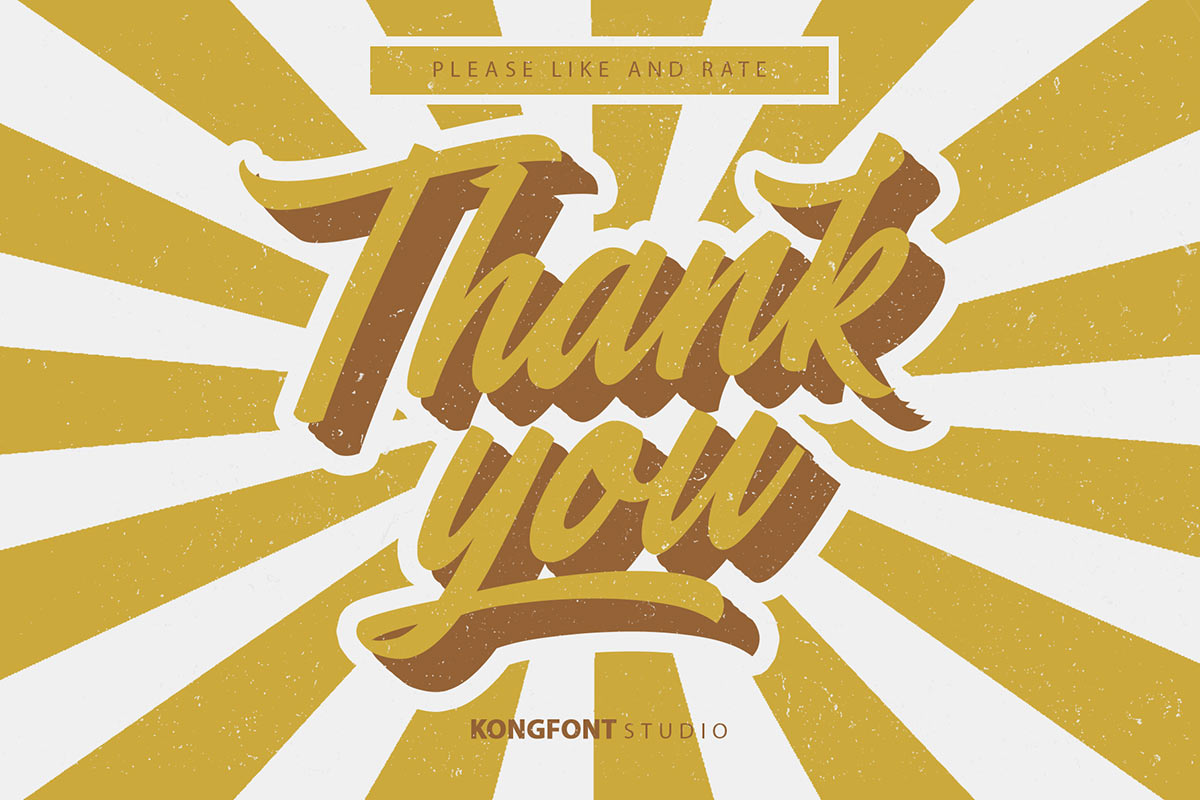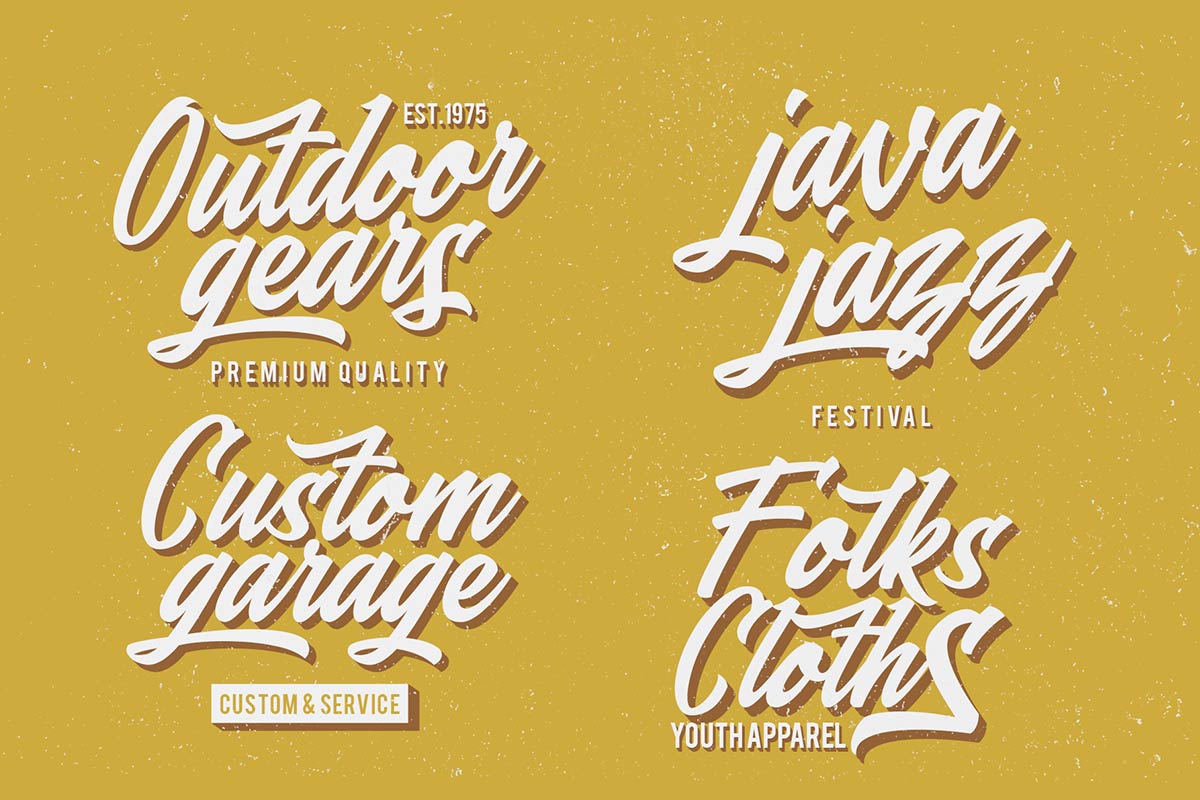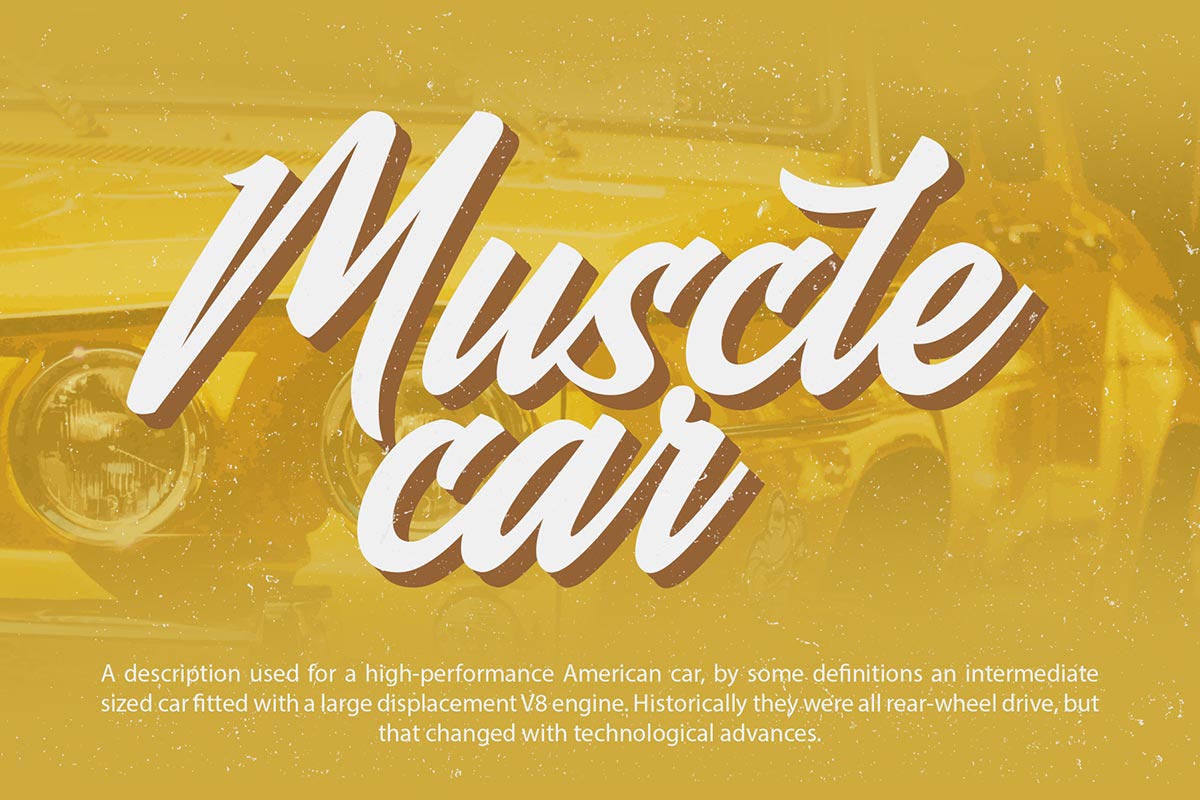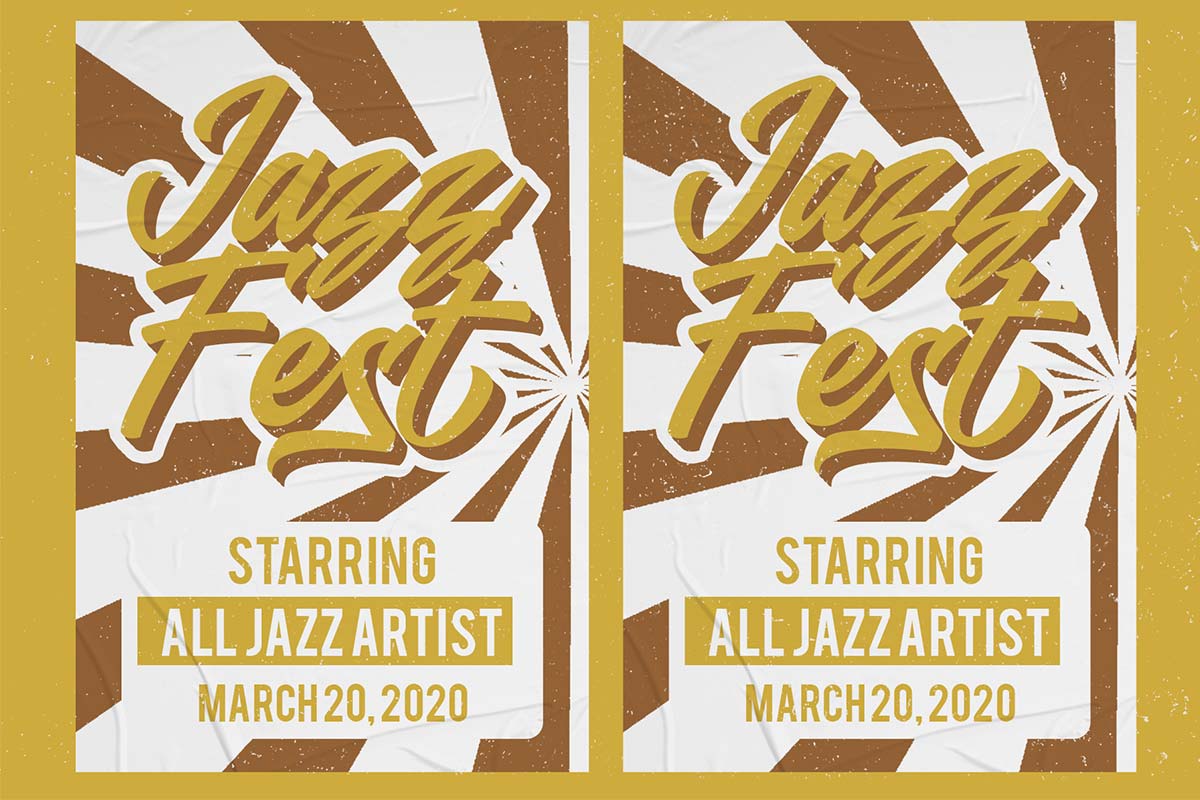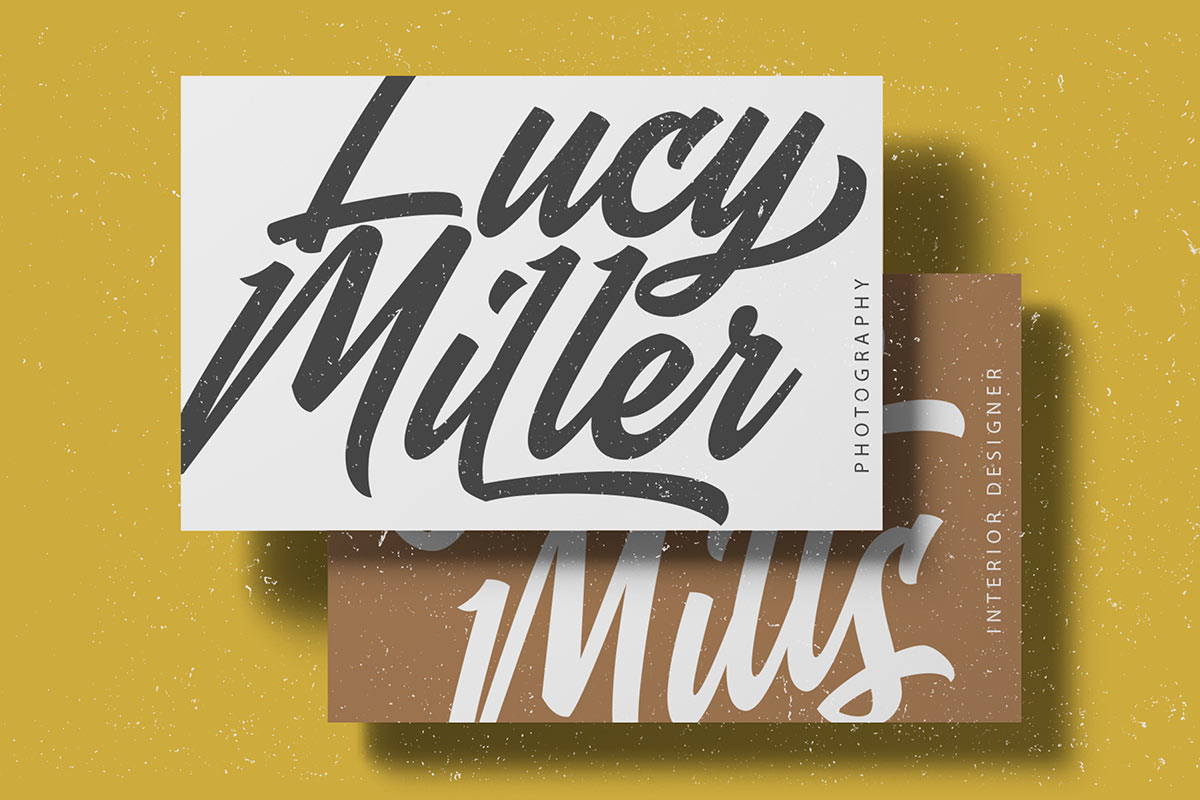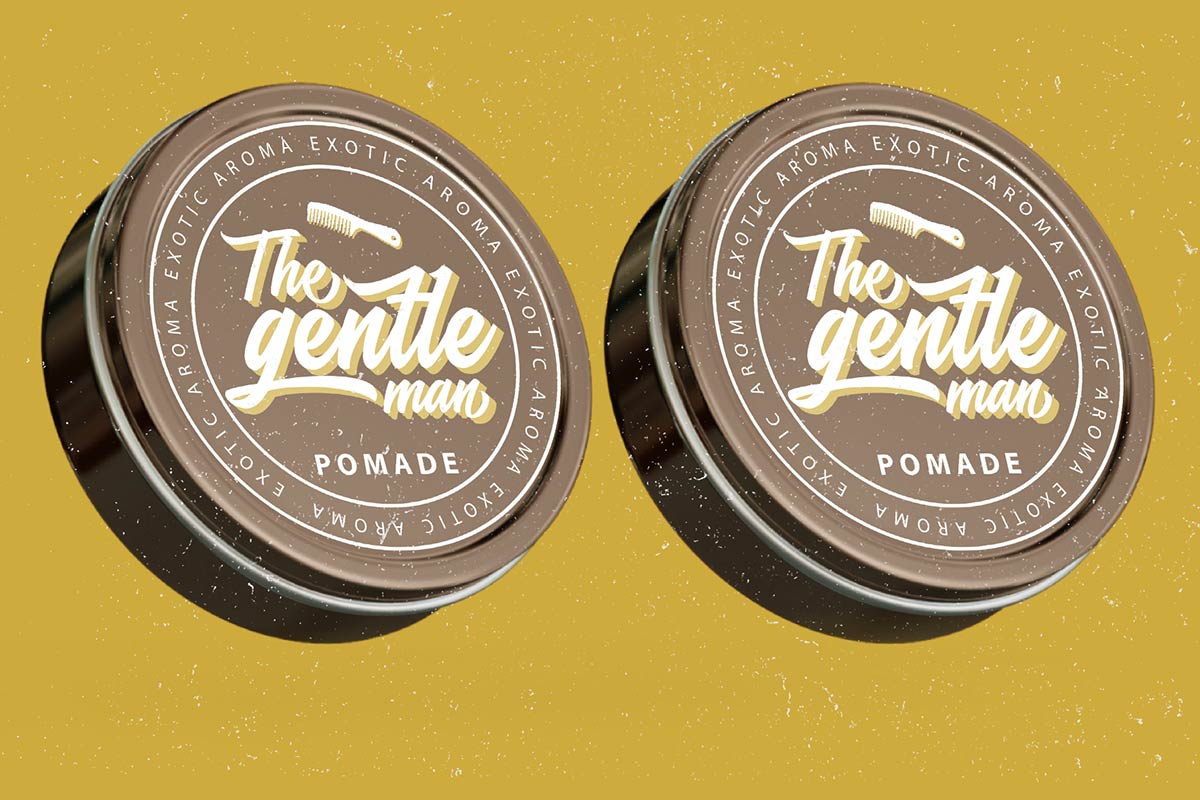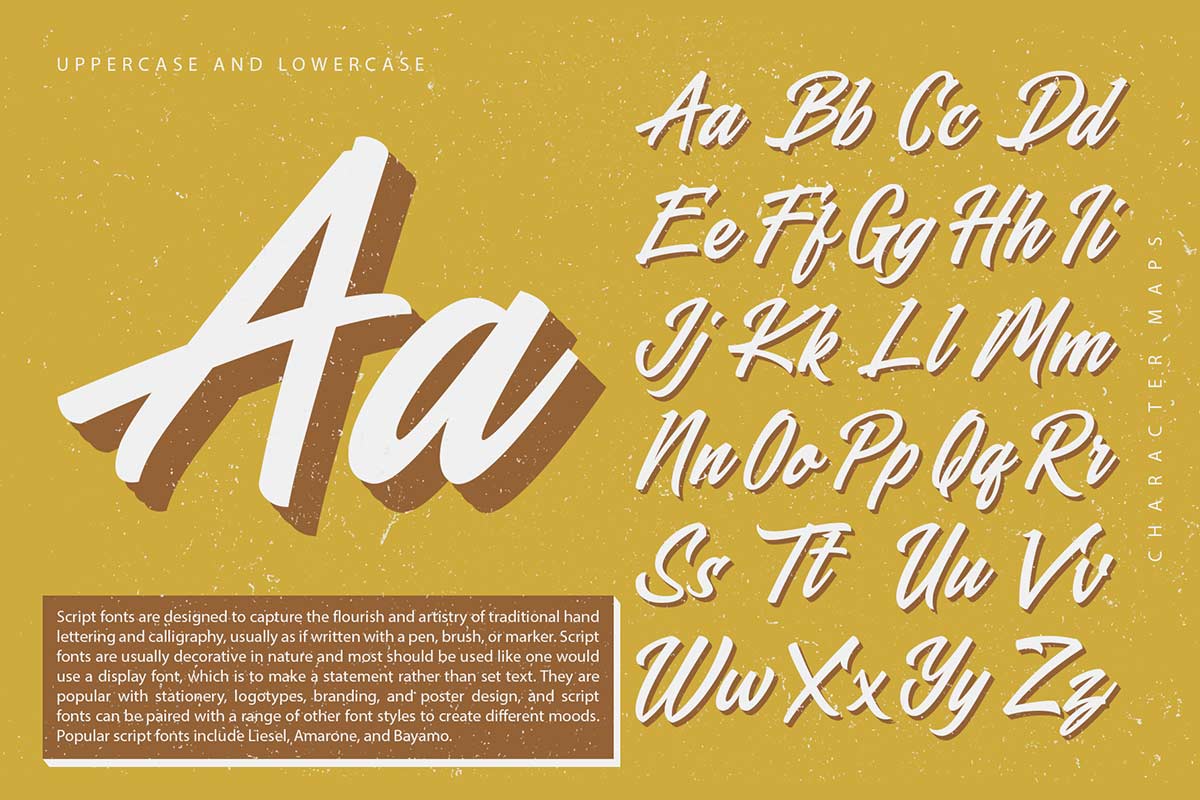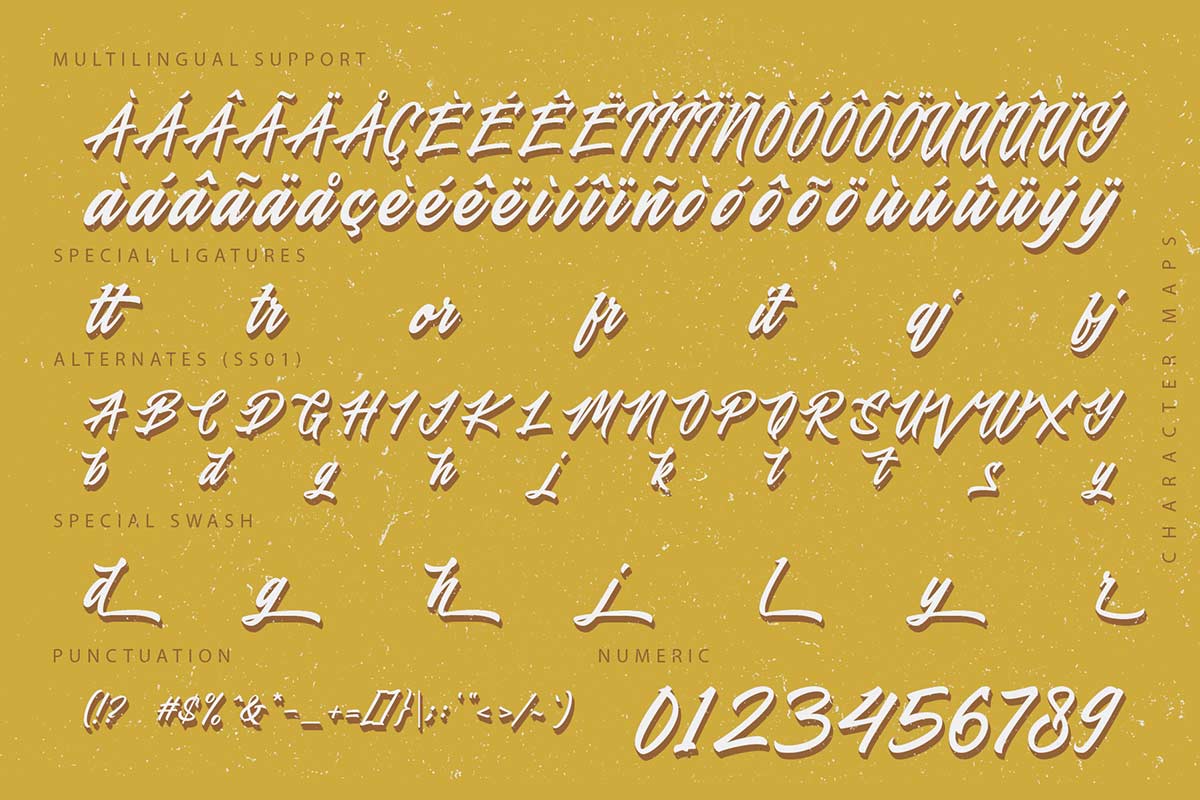
Blasteran Script Font is the name given to this attractive script font. This font comes with a modern, unique, and attractive look. Accompanied by long curves or additions, it looks cool and can captivate every pair of people's eyes. Blasteran Script Font can use as a bold font and a modern font. Blasteran Script Font can use for event titles such as skateboarding events. This font can use as; a digital font such as film, intro, and video outro. This font can give a modern impression to everyone who sees it. As well as being digital, it can use on hoodies, jackets, and other clothing design items. Apart from the things mentioned above, Blasteran Script Font can be used to write product promotions brochure titles. This strong font character can make people know the brochure's contents by looking at the title and the font used. This font can use as a sign for a place or event. Our Script & Signature font collection is compatible to use as Figma Fonts, Canva Fonts, Freepik Fonts, and Adobe Fonts. They also work as Windows Fonts and Apple Fonts. For your social media needs, you can use and install fonts in our collection of Espot & Futuristic fonts to use as Instagram Fonts, Facebook Fonts, and Twitter Fonts.